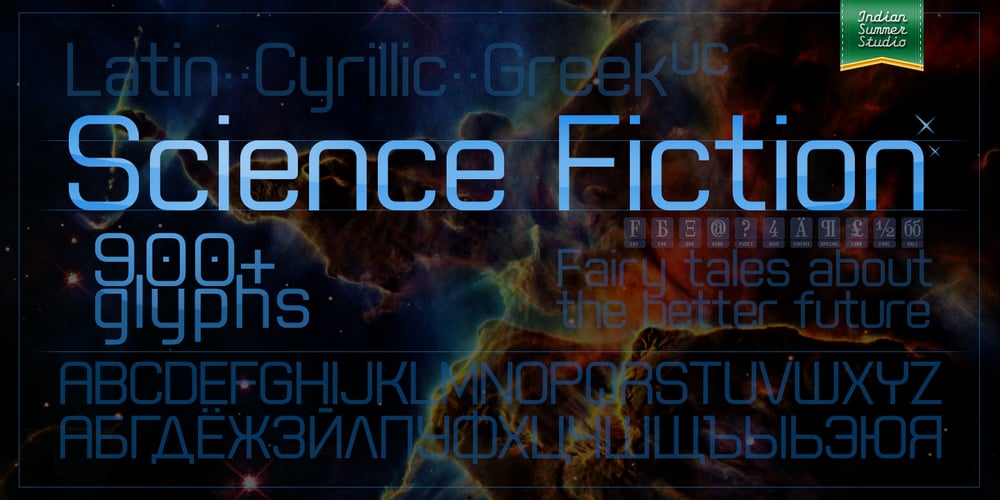
Science Fiction
Science Fiction font
Science Fiction Font Family was designed by Alexander Bobrov and published by Indian Summer Studio. Science Fiction contains 2 styles and family package options. Geometric sans-serif with clean, ordered, hi-tech, futuristic feeling.For texts, titles, interfaces, logos, technical inscriptions, everything.